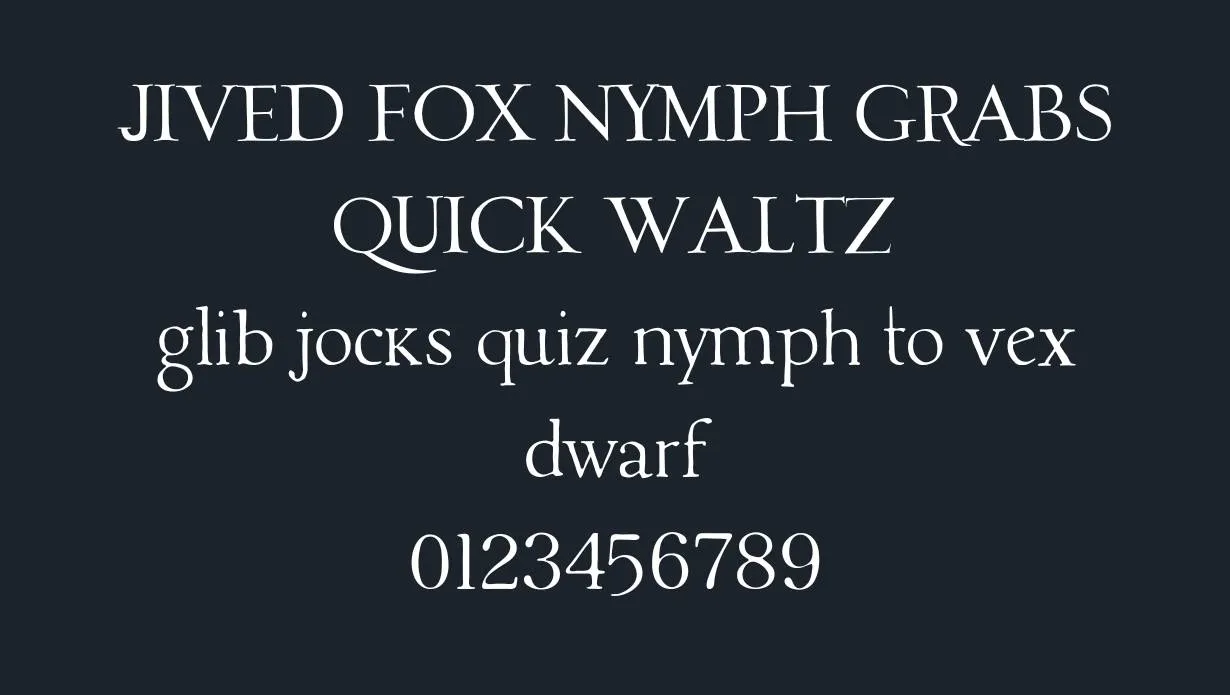
Today, going to introduce to you an exquisite and interesting texture called Loki Font. It belongs to the serif texture family and was designed by a well-known graphic designer named Bolderaja1 Studio. This charming texture is free and available and has both file formats OpenType and TrueType.
You may combine this font with ambit font and make stunning projects. This font includes various types of characters such as uppercase letters, numerals, digits, symbols, and punctuation. Its unique style will make your project more attractive and easy to readable for visitors.
Who Used Loki Font?
The loki font is suitable for different kinds of designs, and projects. Due to its neat and easy to readable ability, it is perfect for headings, titles, body text, and many other projects. Many designers utilize this font for making tattoos, kids’ bags, signage, T-shirt printings, design logo, and stationary printings.
Loki Font Family Appearance
| Style | Serif |
Family of Loki Font
- Loki Italic
- Loki Regular
- Loki Bold
What type of font is Loki Font?
Loki Font is an exquisite and interesting texture and belongs to the serif texture family.
Who designed the Loki typeface?
Is Loki a good font?
Yes! This font is a good texture for all your fun tasks and purposes.